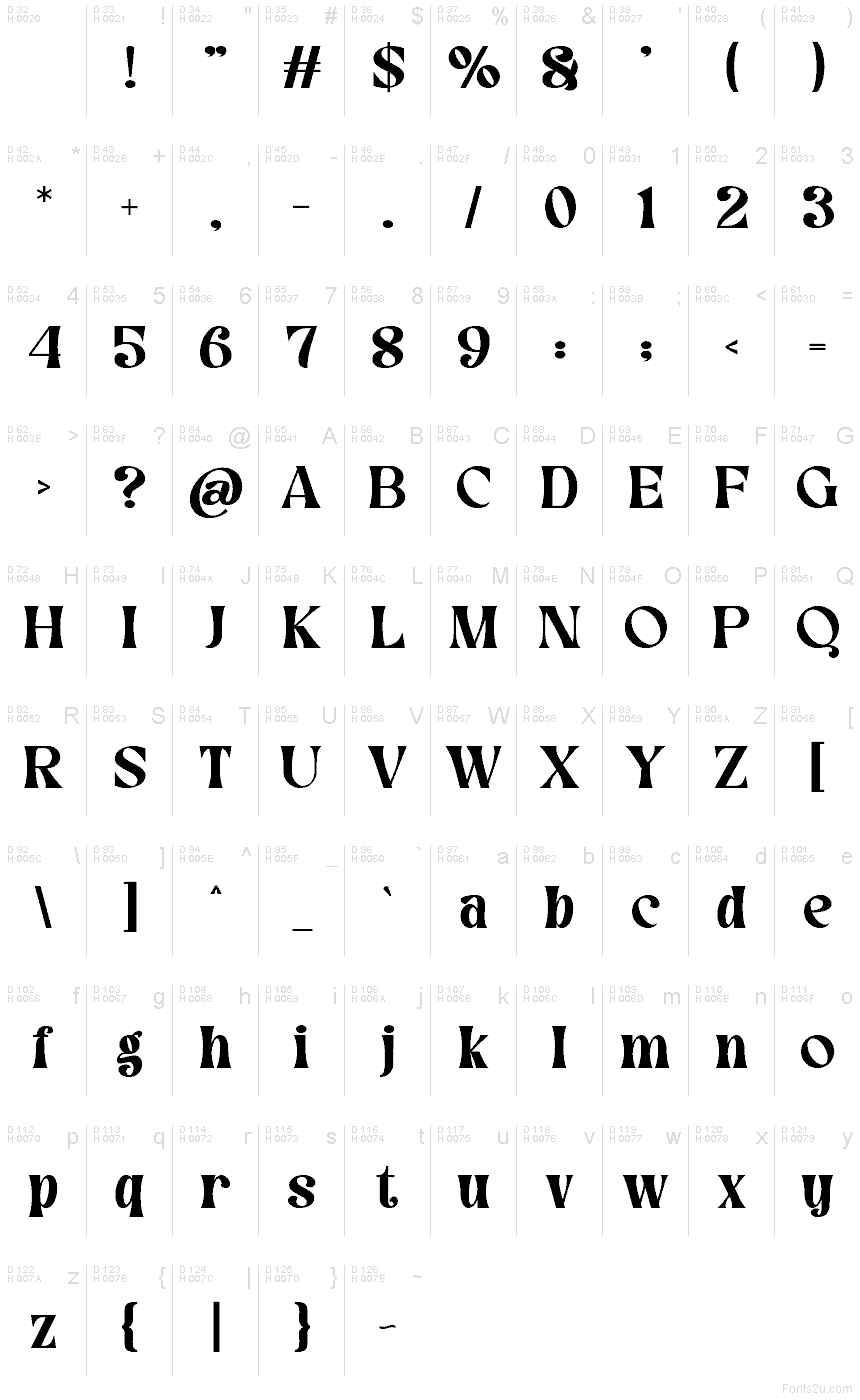
Hallo Almond
Hallo Almond font by Gilang Ternadho is a free serif font inspired by the art nouveau style. The elegant letters display fluid curves that contribute to its sophisticated appearance. Decorative ligatures and several alternate options give the font more personality with a vintage vibe being clearly visible. This bold typeface is perfect for high-impact texts.